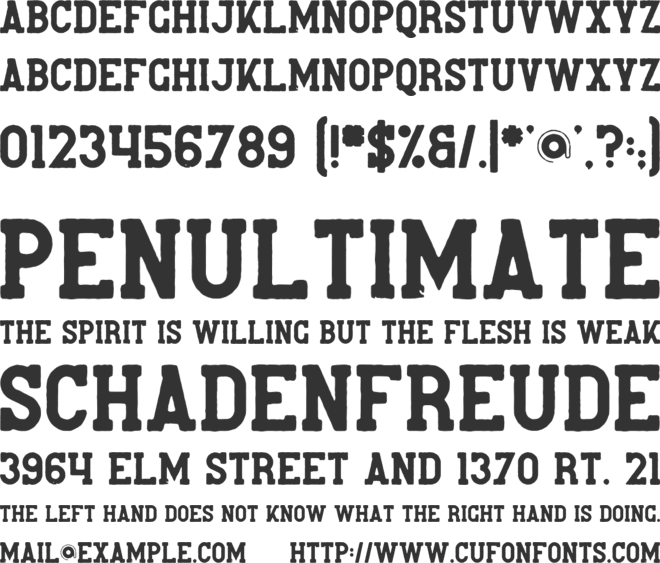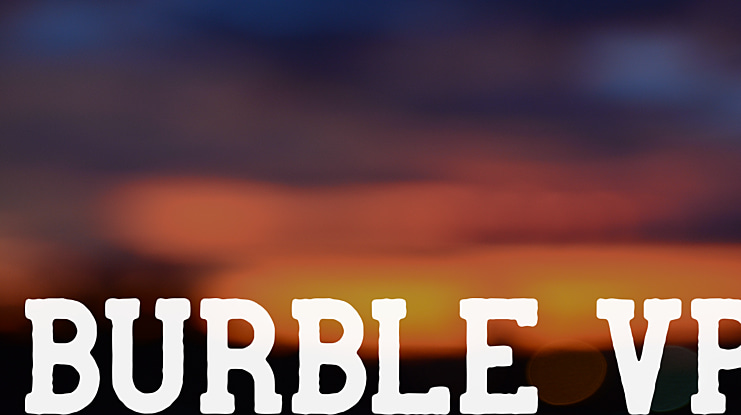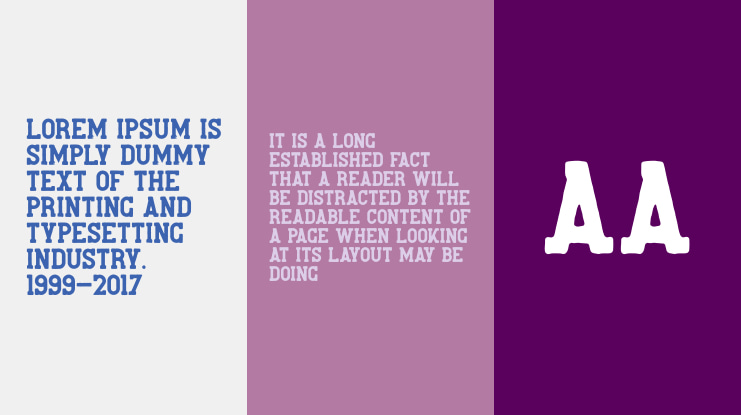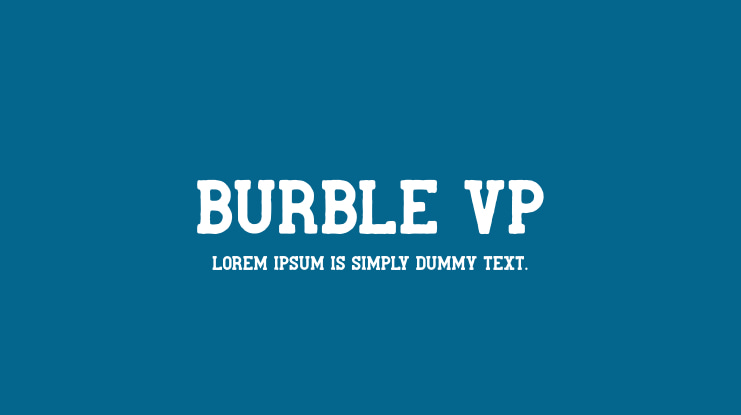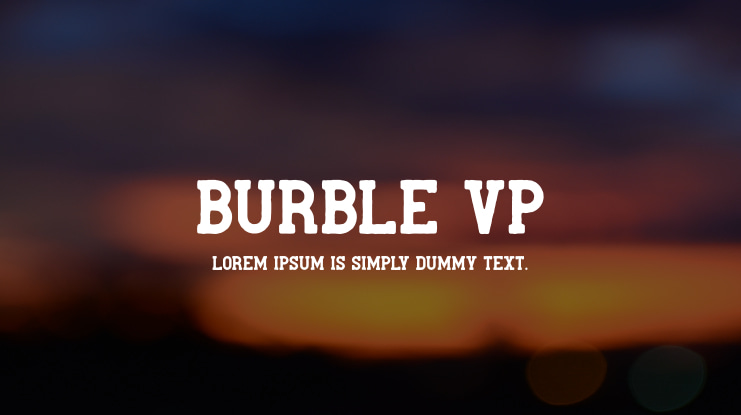
Burble VP Font Family
Burble is perfect for branding projects, home-ware designs, product packaging, magazine headers - or simply as a stylish text overlay to any background image.
Uppercase, numeral, punctuation & Symbol
Multilingual support